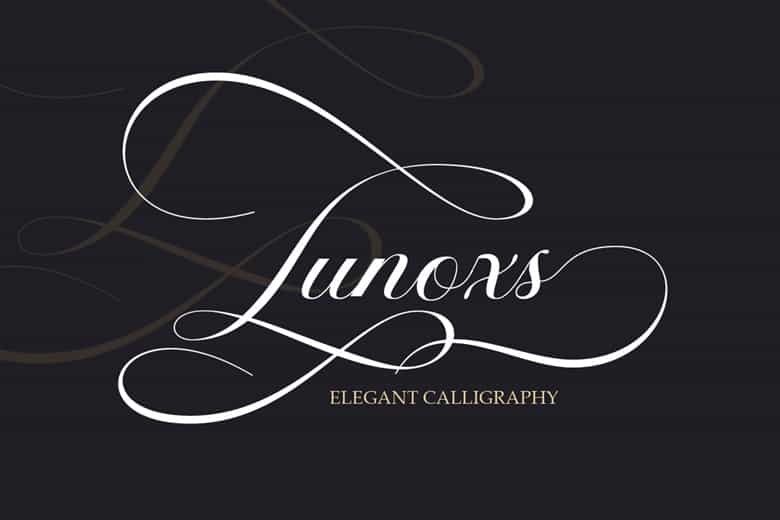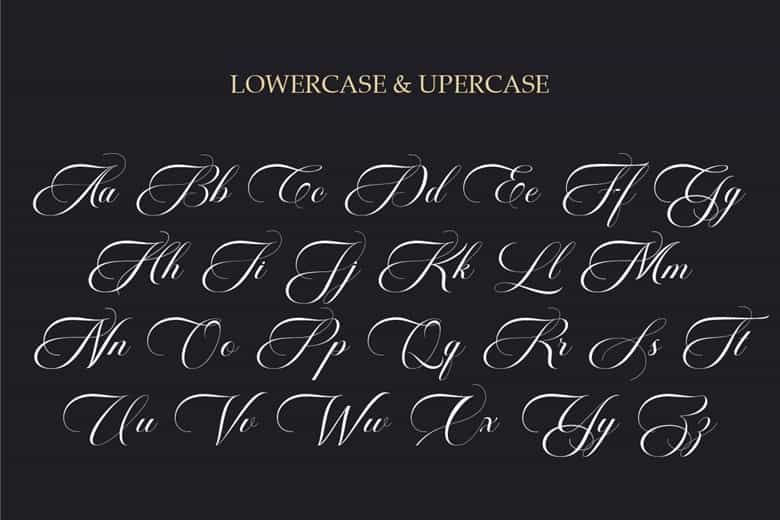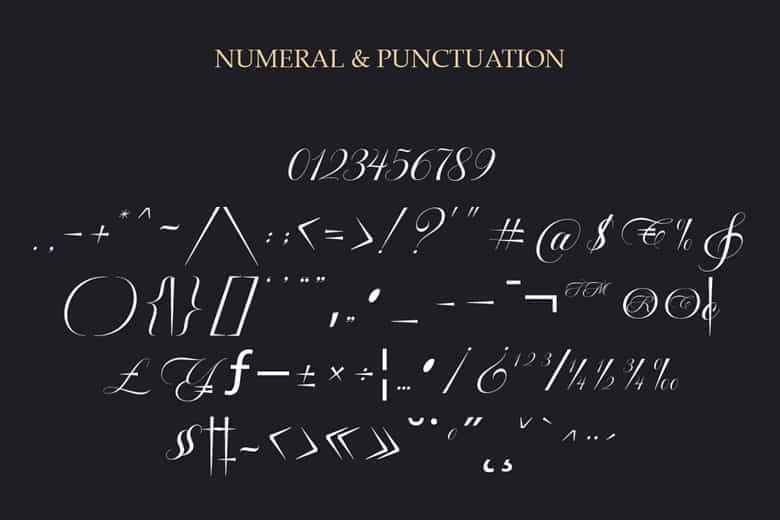
Lunoxs is an elegant calligraphy script font. This font can be suitable for using in photography, social networks, advertisements, logos and branding, invitations, products design, labels, stationery, product packaging, special events and others.